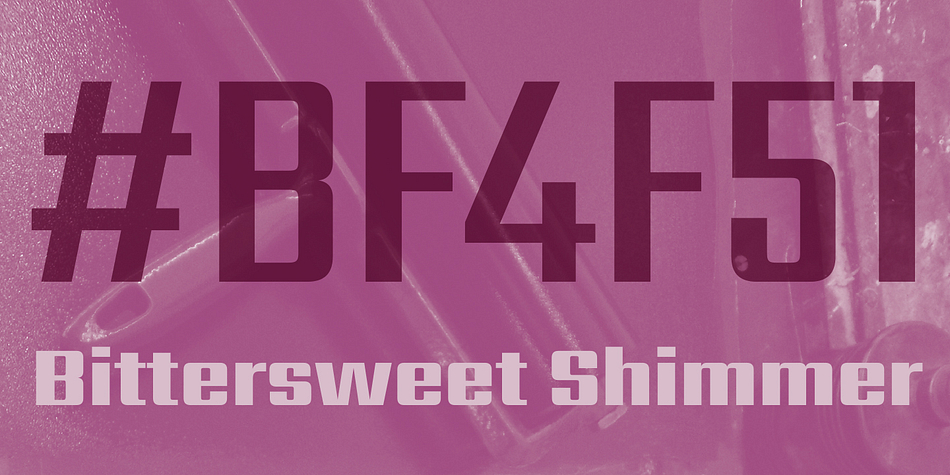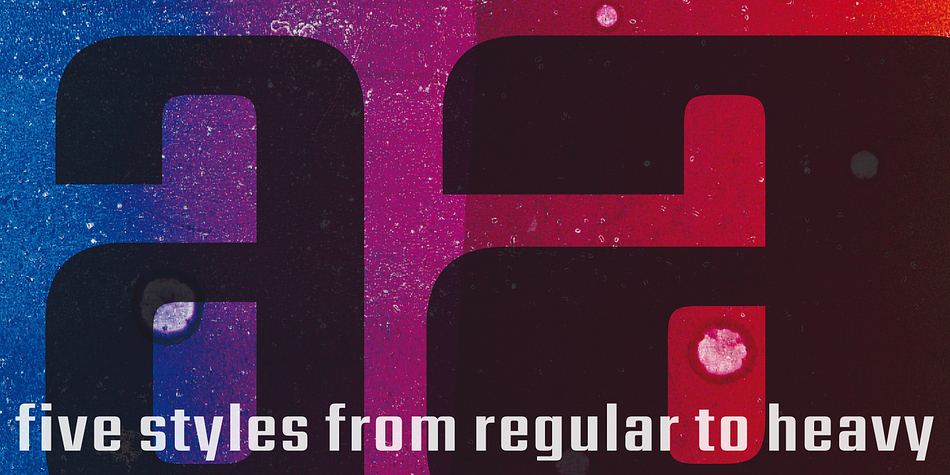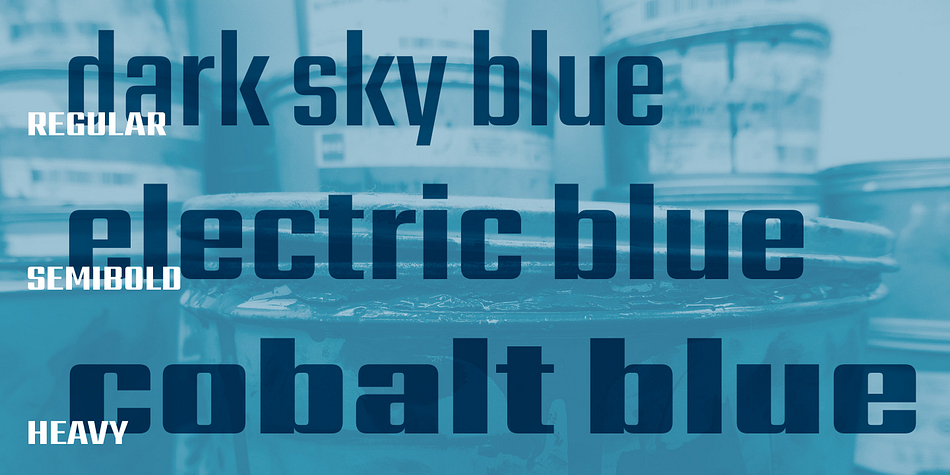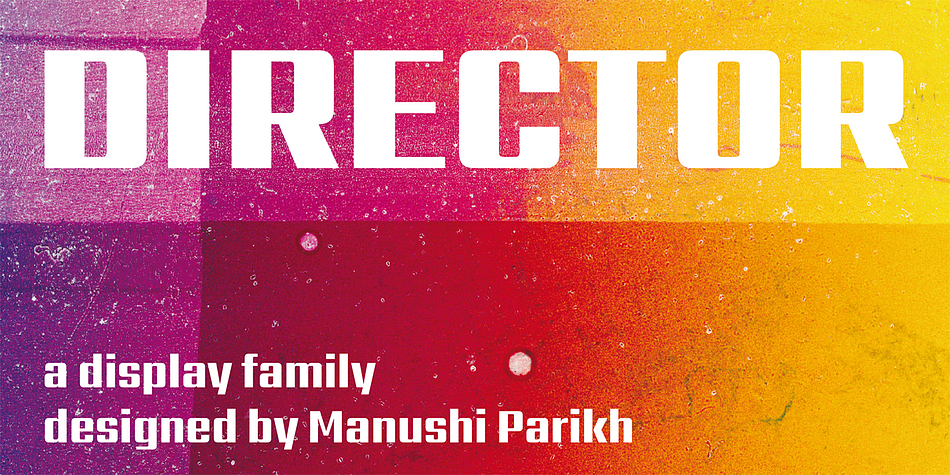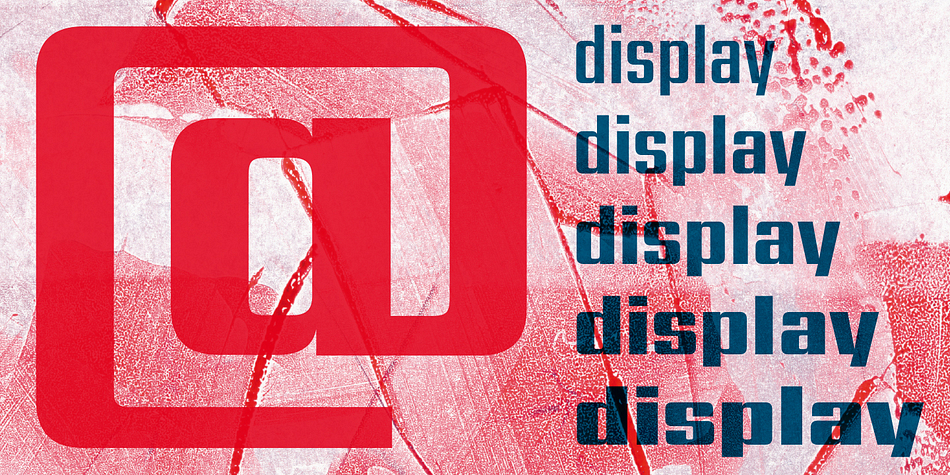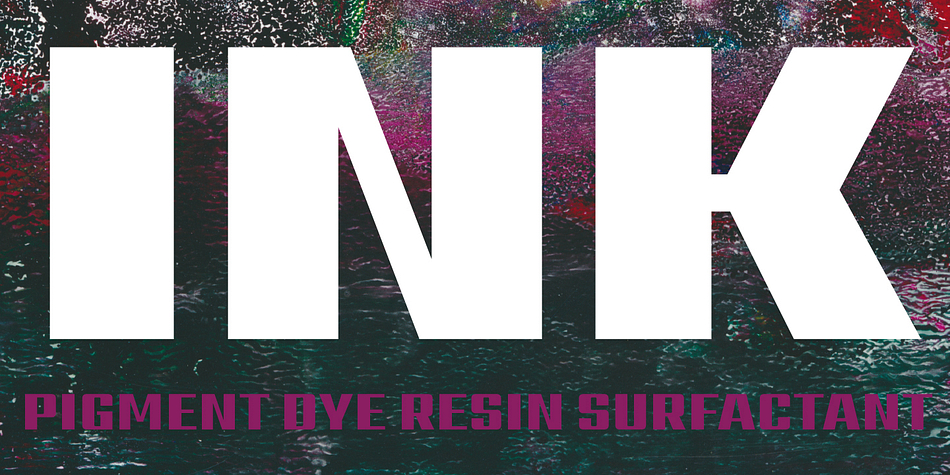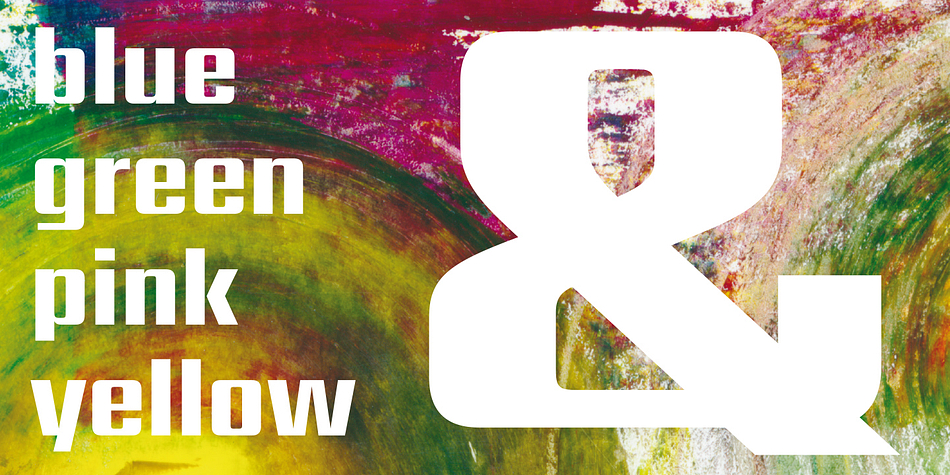
Designed by Manushi Parikh, Director is a display and display sans font family. This typeface has five styles and was published by Indian Type Foundry.
Director is a minimal display family from ITF for the Latin script. Across each of the family’s five fonts, all of the horizontal strokes share a consistent thickness, while the vertical strokes grow thicker with each new weight. So the Regular’s strokes are almost monolinear, but the Heavy weight has stroke contrast that is very severe. No matter how heavy you set Director, however, your text will retain a simple, squared appearance.